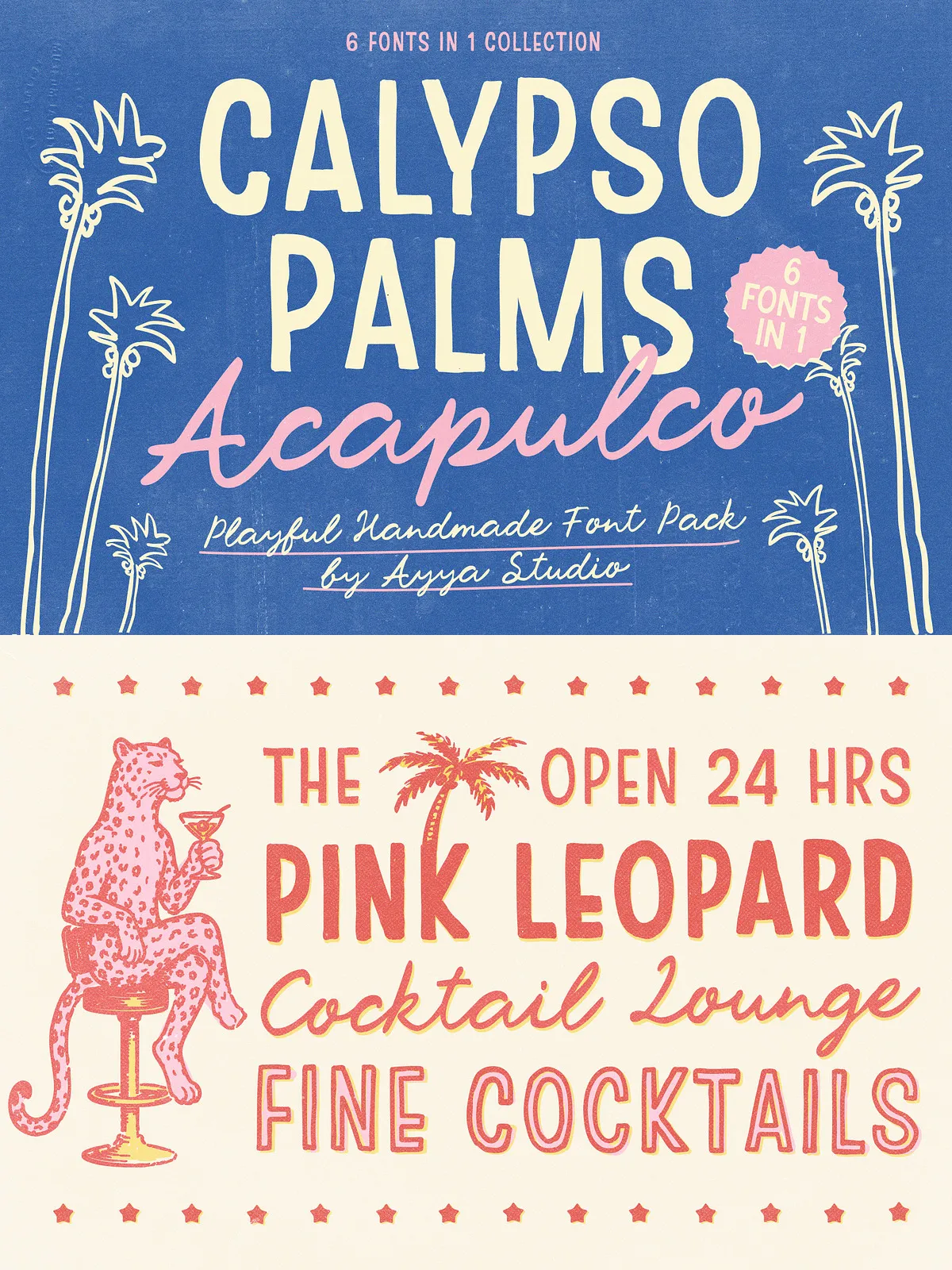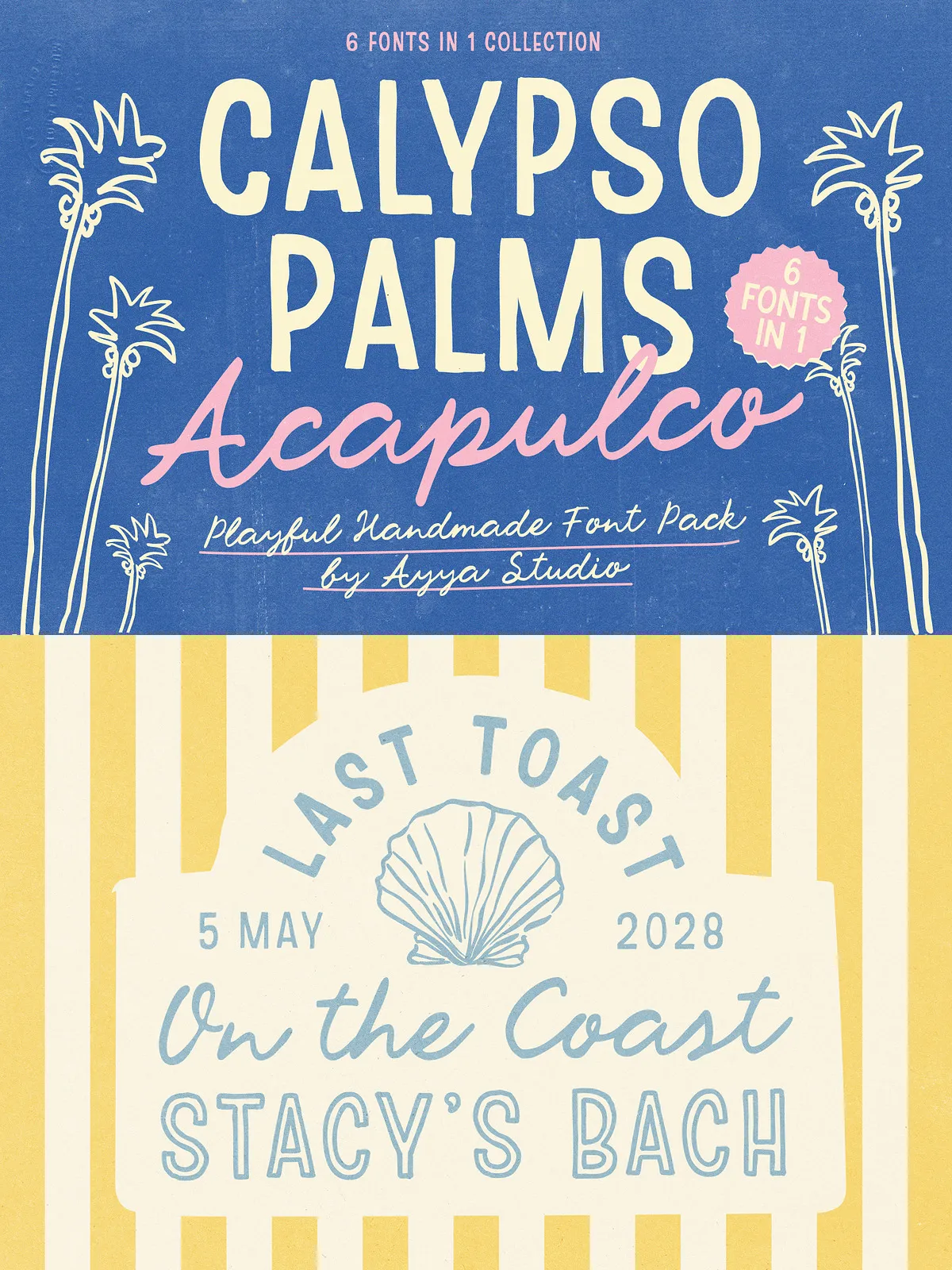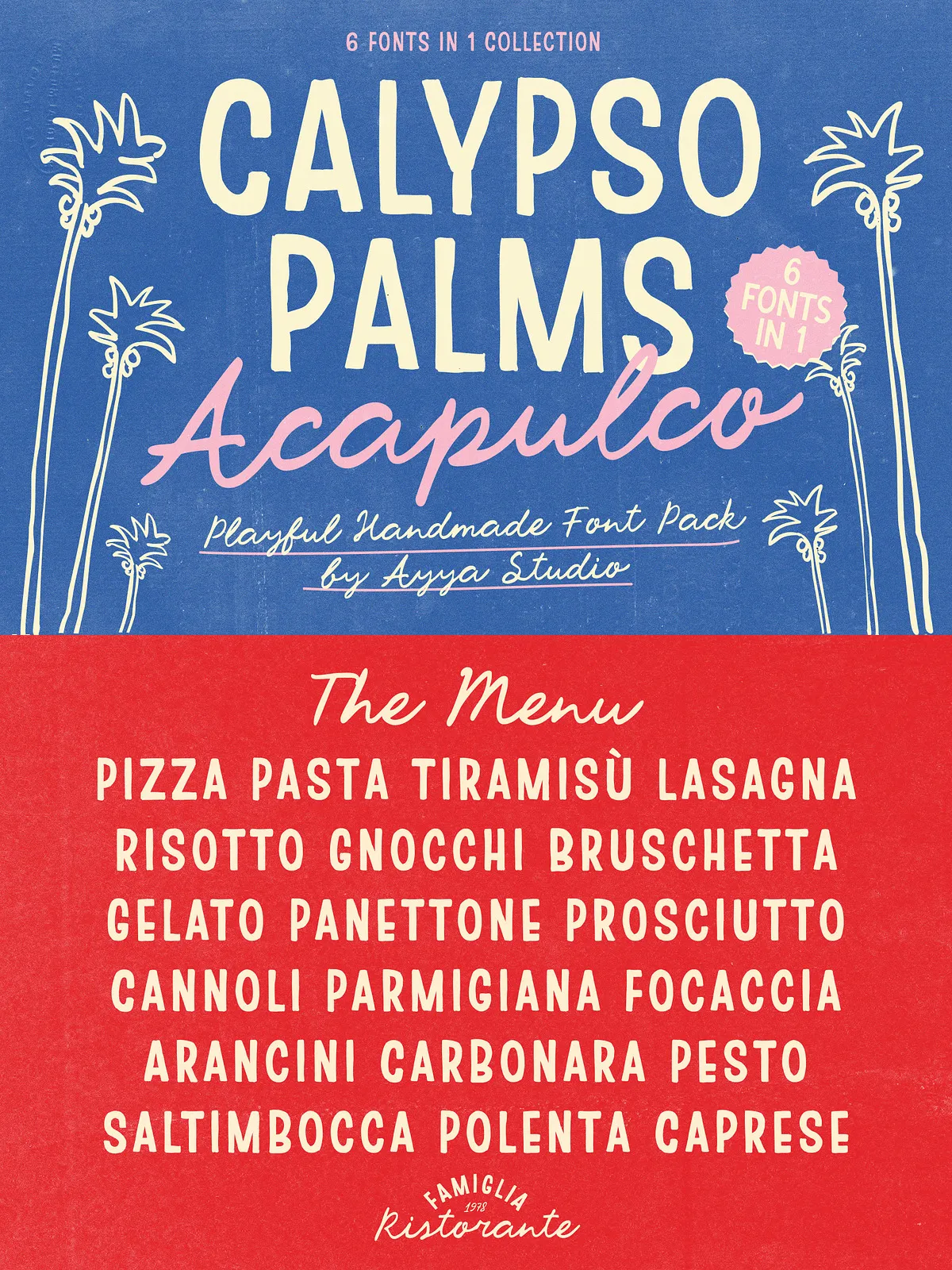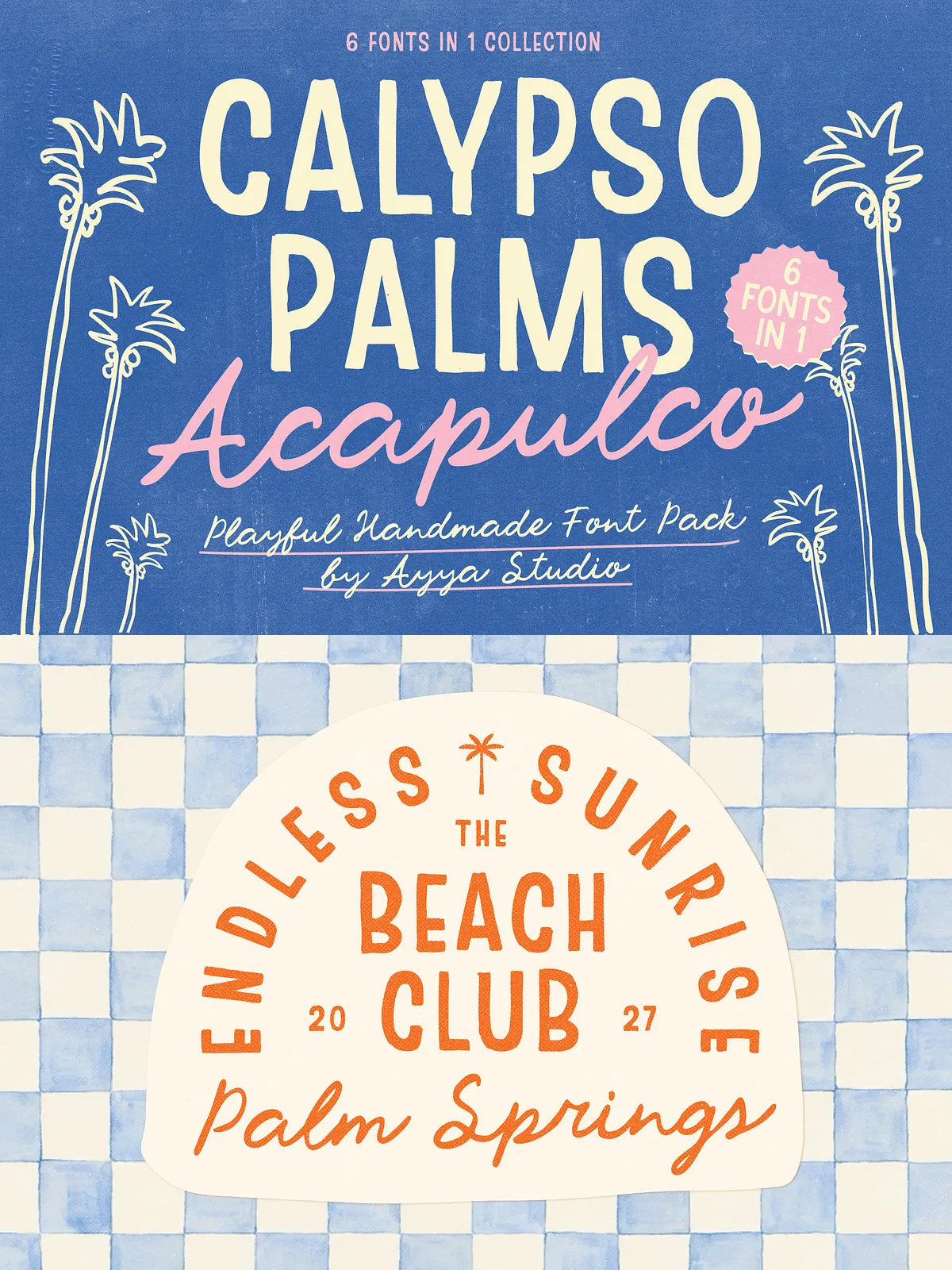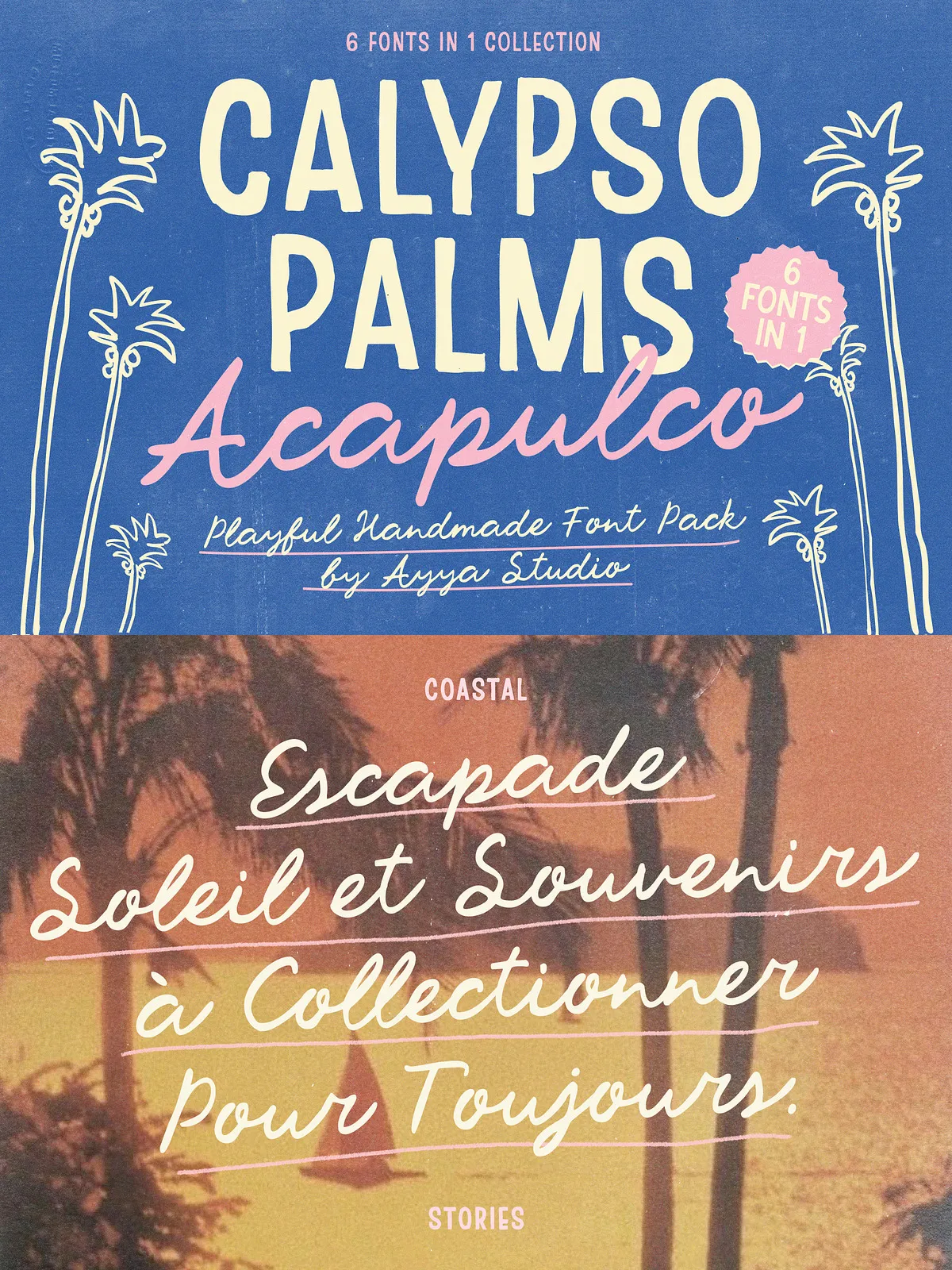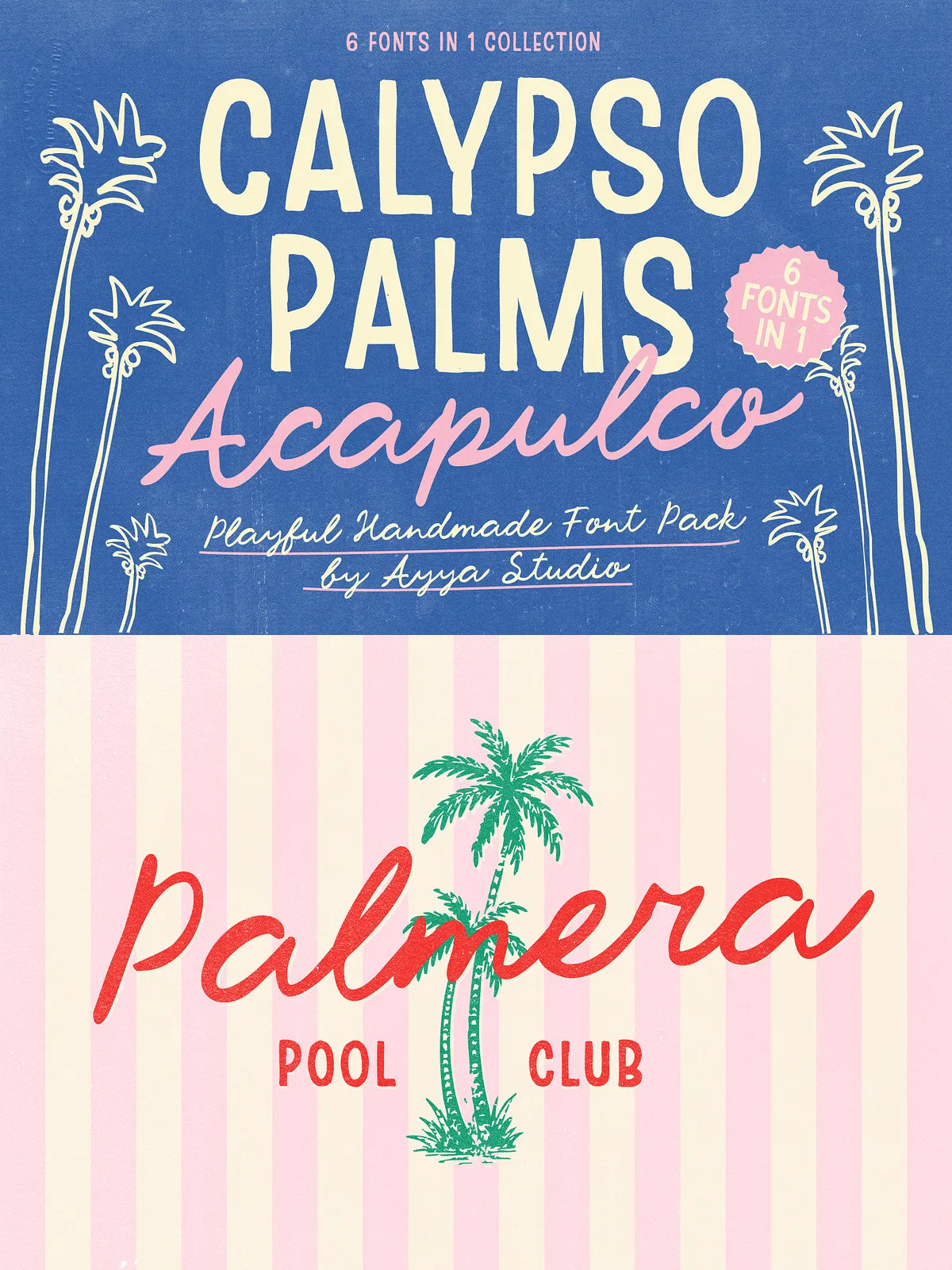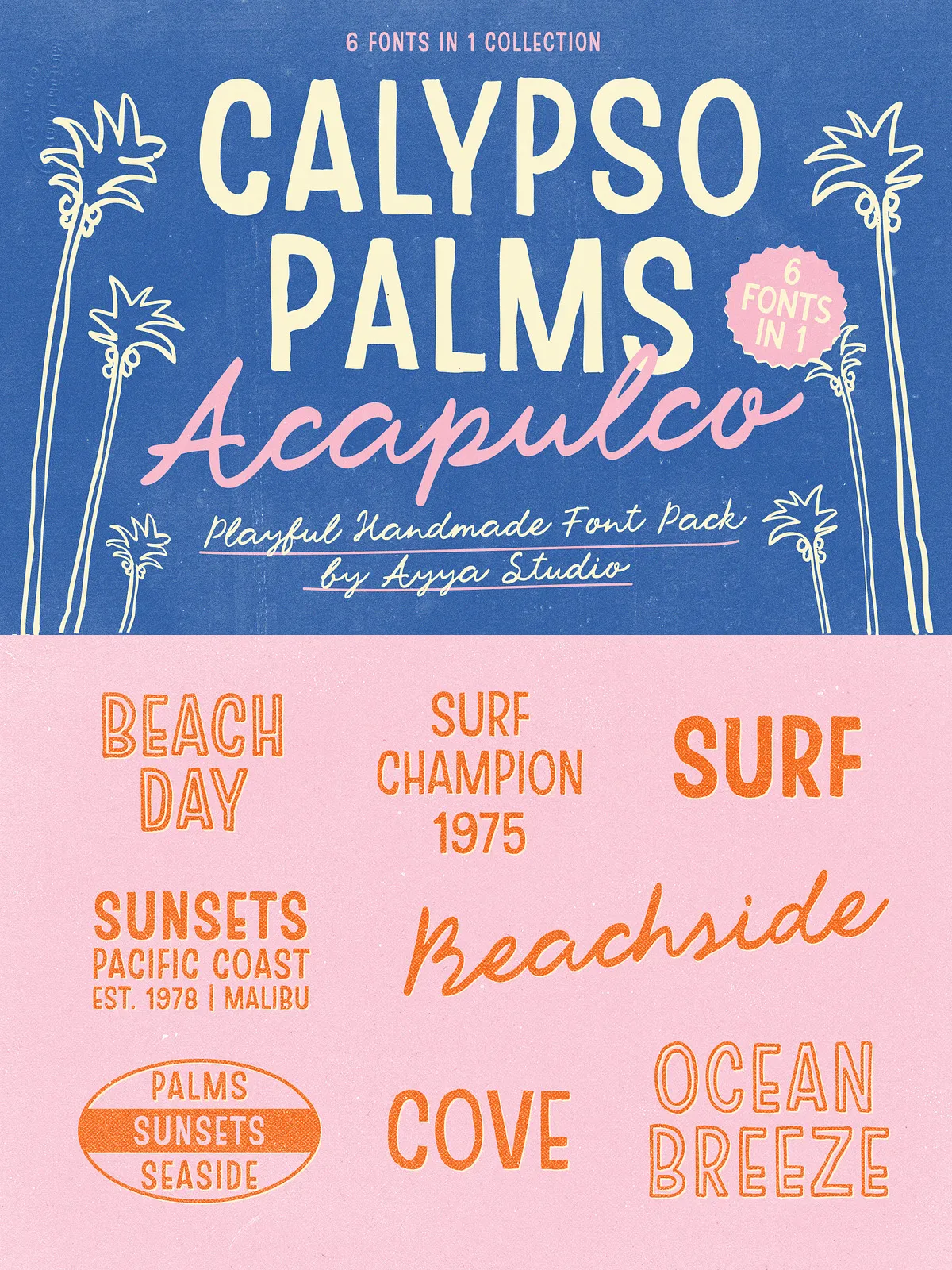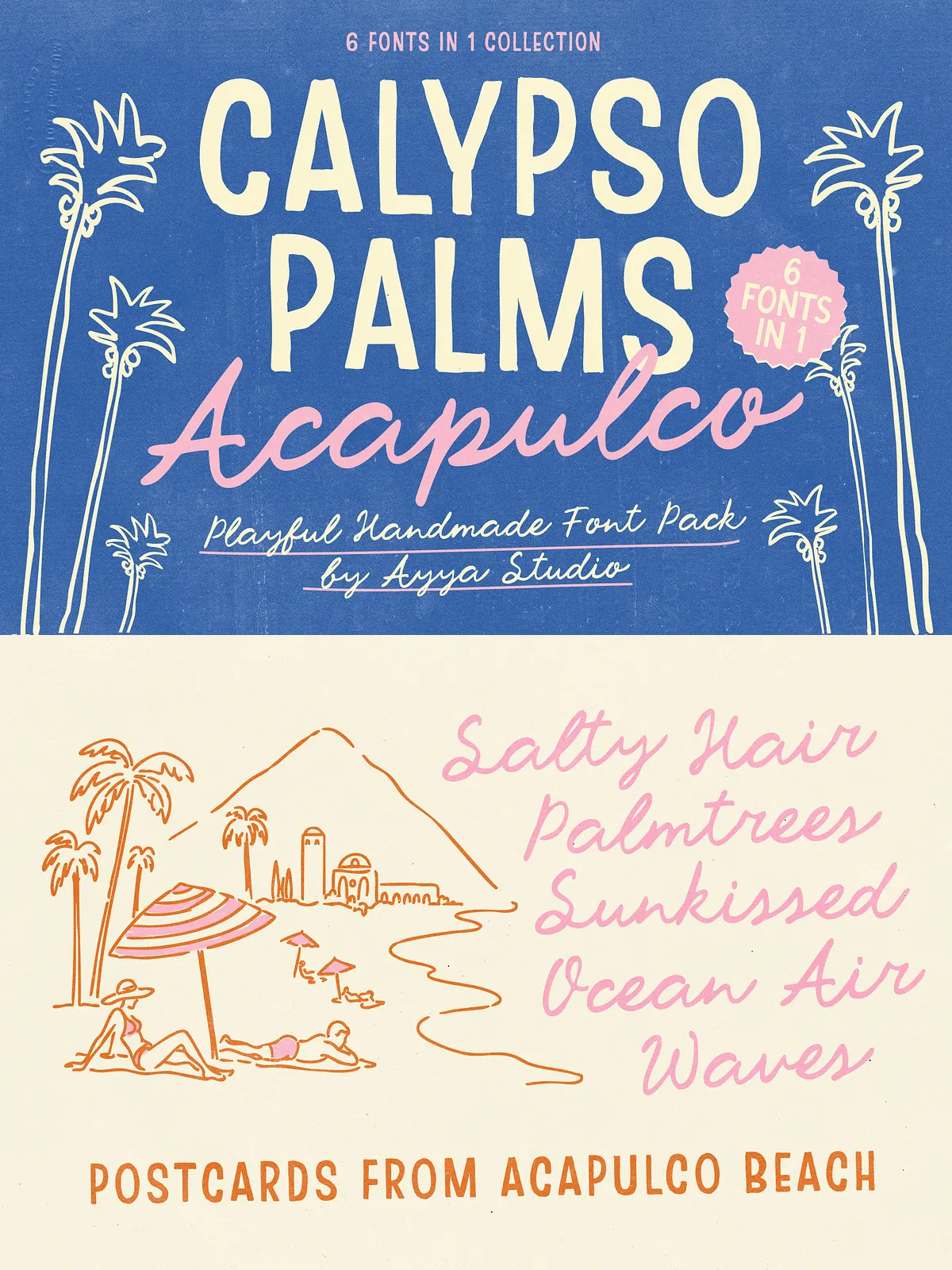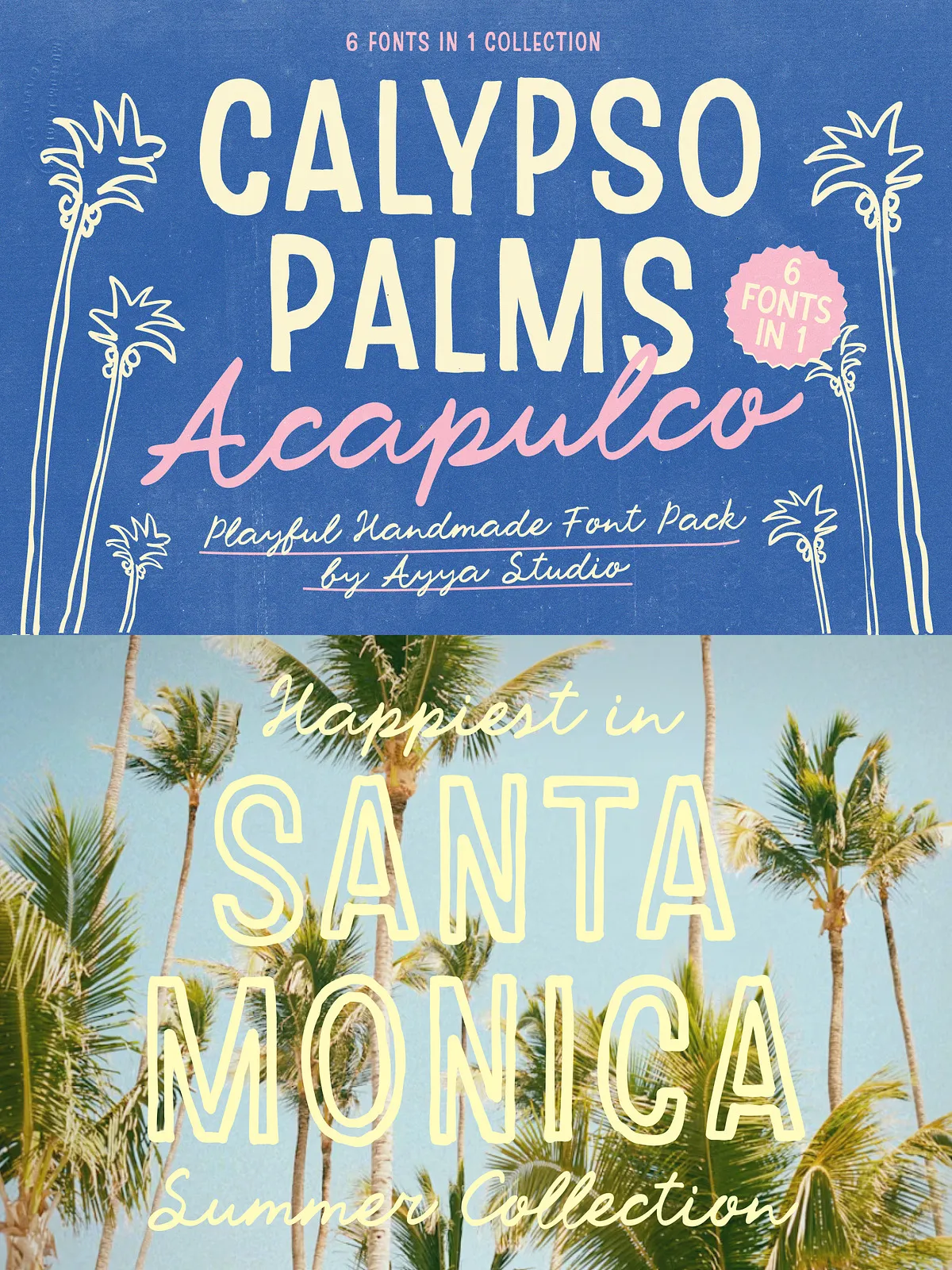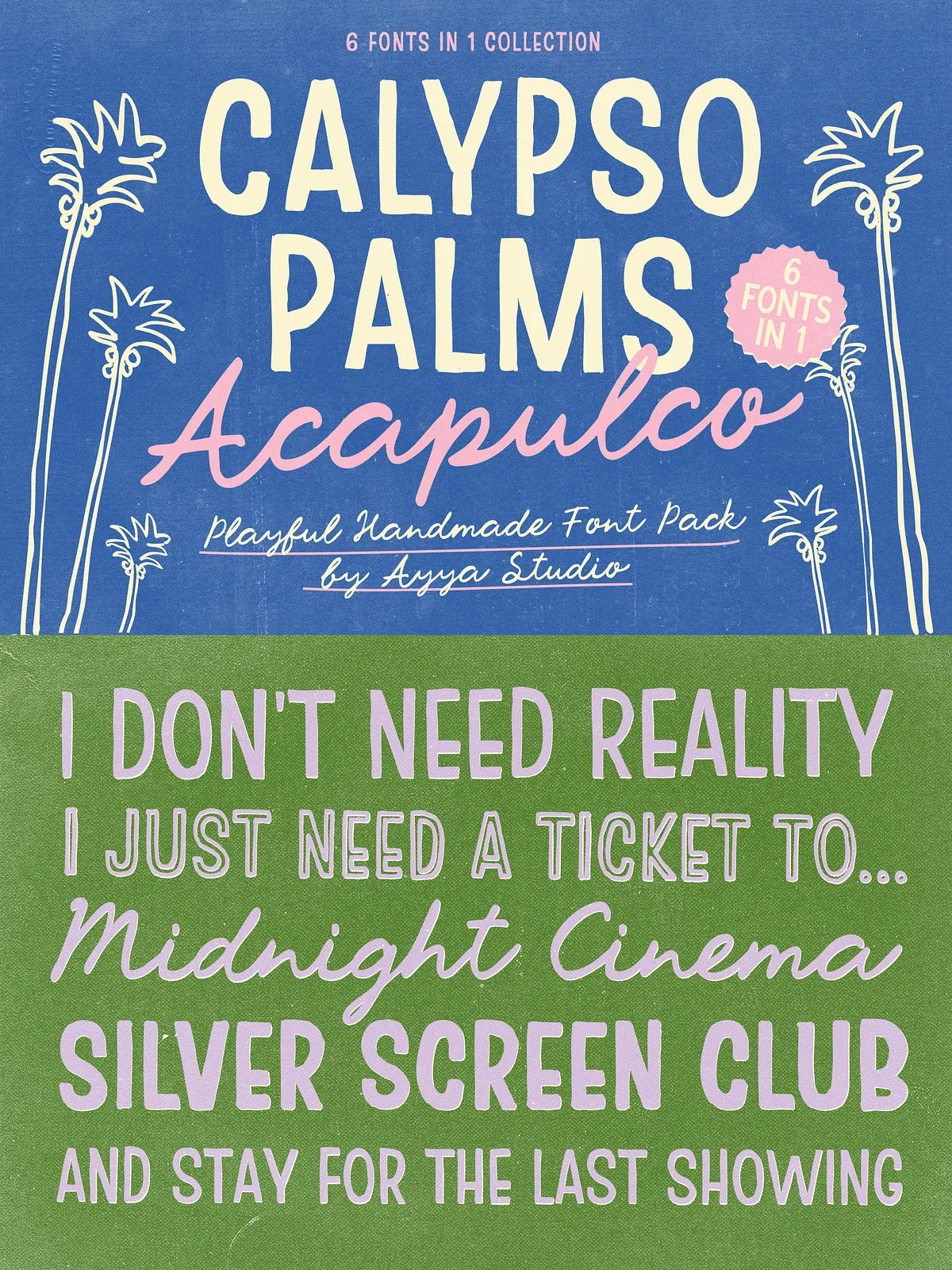
Handwritten Sign Painter Font Family
Calypso Palms channels the warmth and character of vintage coastal signage. Inspired by classic packaging, painted storefronts, and old labels, this hand-drawn font family captures the natural texture and imperfect charm of retro sign painting. Each letterform was drawn by hand to preserve uneven edges, subtle texture, and organic imperfections that lend authenticity and personality to every application.
Authentic Hand-Drawn Texture
Every face in the Calypso Palms family preserves hand-drawn nuance: subtle brush marks, slightly irregular strokes, and natural edge wear. These textures give designs a lived-in, human touch that digital-only fonts rarely achieve.
Flexible Display System
The family pairs a relaxed coastal Script with multiple display weights and outline variants. Use a single style for a focused look or combine several faces to build layered, eye-catching compositions that maintain cohesion and vintage authenticity.
Designed for Real-World Use
Calypso Palms performs well in print and digital production. The bold and outlined styles translate perfectly to packaging, signage, and apparel, while the Script provides warmth and friendly personality for invitations, labels, and editorial accents.
Perfect For
• Vintage-inspired branding and logos
• Sign painter logos and storefront signage
• Coastal, beach, and travel-themed projects
• Packaging, product labels, and iced-capsule graphics
• Wedding invitations and stationery with nostalgic charm
• Restaurant menus, cafe branding, and hospitality identity
• Posters, souvenir graphics, and travel prints
• Apparel, merchandise, and editorial covers
• Social media visuals and marketing materials that need character
Usage & Pairing Recommendations
Pairing Advice
Pair Calypso Palms with clean sans-serifs or neutral serifs for body copy to maintain legibility while preserving the family’s vintage voice. For high-impact headers, combine the Bold or Outline styles with the Script for contrast and layered interest.
Styling Tips
Emphasize the hand-painted aesthetic by using muted or sun-faded color palettes, textured backgrounds, or subtle grain overlays. When producing screen-printed apparel or large format signs, test stroke widths and contrast to ensure the textured edges reproduce crisply at production scale.